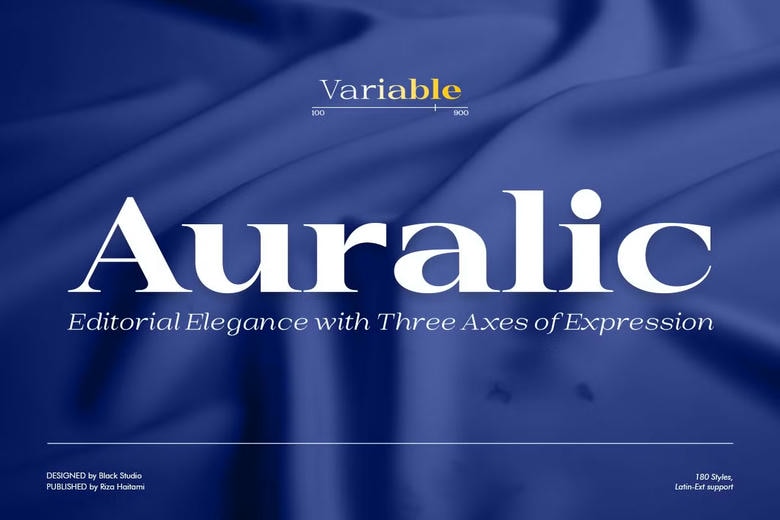
Auralic Font Family
Auralic is a high-tech variable serif typeface which is a kind of editorial and has a modern soul. Auralic is created with three different axes of expression and provides an unmatched flexibility, enabling you to select 180 different styles effortlessly. Its extreme contrast letterforms, hard serifs, and elegant curves are designed to add a sense of expensive and legibility to a project.
Magazine layouts, book publishing, high-end branding, and sophisticated web design Perfect Perfectly suited to delivering a message with poise and confidence Perfectly suited to high-end branding, magazine layouts, and book publishing Auralic lends the message the appropriate tone of authority and confidence.
Having a rich Latin-Extended font support means that this font can be a highly effective orchestrating agent to the designers who want to produce the timeless and memorable works that resonate with the global audience.
Auralic Serif Font Family